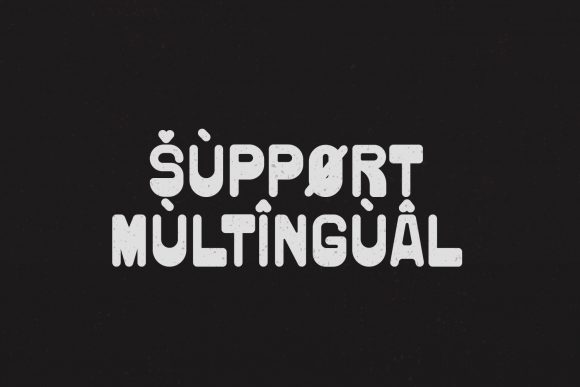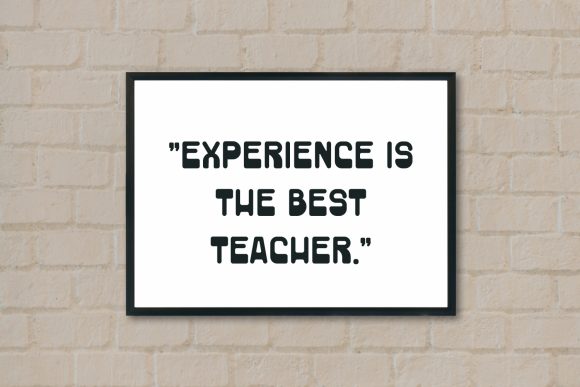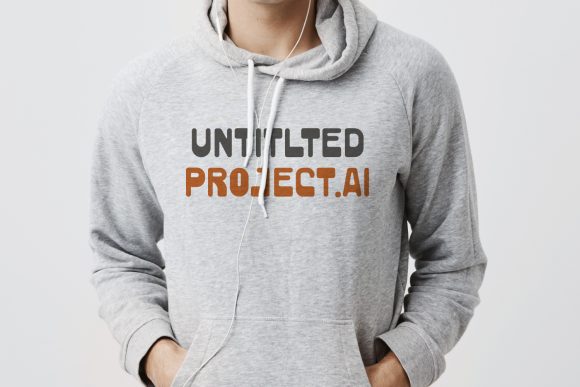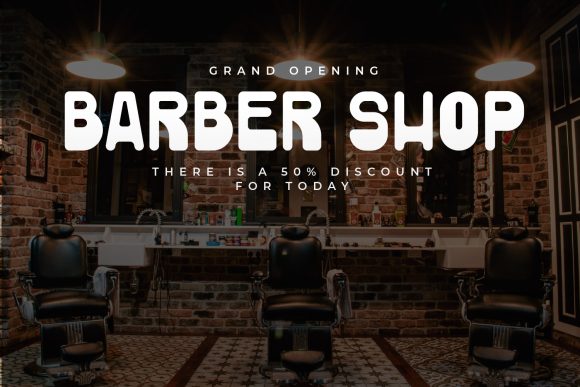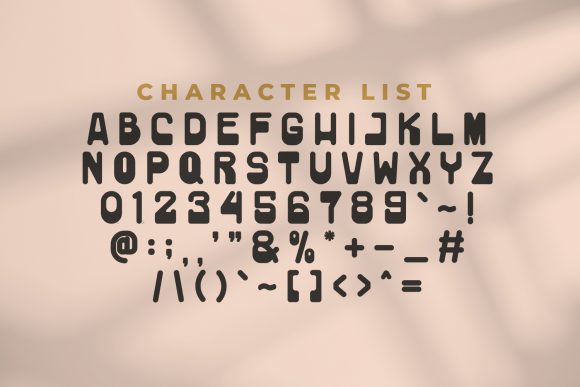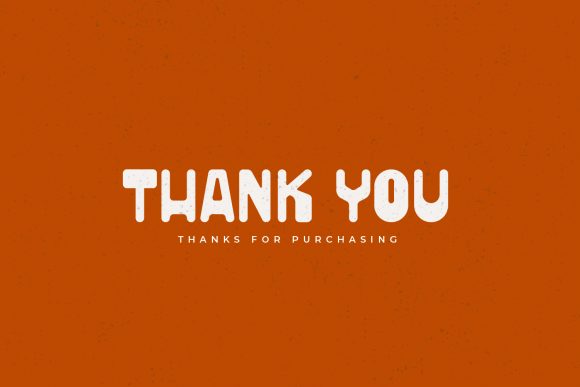
Introduction to Orange Goods Font
Have you ever stared at a blank page, desperately searching for the perfect font to bring your creative idea to life? That’s where the magic happens, and for many designers, it’s a moment of pure excitement. The right font can elevate your design from ordinary to extraordinary, making it stand out in a crowded market.
Enter the Orange Goods Font, a playful, cool, and modern display font that embodies the essence of fun, uniqueness, and authenticity. This dazzling display font is a game-changer for any creative project, offering a high-quality design resource that’s sure to turn heads. Whether you’re working on a free download or a paid project, Orange Goods Font is an excellent choice for designers seeking a reliable and versatile font.
With its transparent background and sleek design, Orange Goods Font is a valuable asset for any designer’s toolkit. It’s the perfect addition to your design arsenal, guaranteed to bring a touch of creativity and flair to your next project.
Key Features of Orange Goods Font
• High-quality design with a transparent background, perfect for creative projects that require a unique and eye-catching visual element.
• Includes a large character set, covering a wide range of languages and characters, making it suitable for global design projects.
• Features a bold and modern design, ideal for use in logos, branding, and other visual identity projects.
Honest Review: Orange Goods Font
• The Orange Goods Font is incredibly versatile, making it perfect for a wide range of creative projects.
• The font’s modern design is both sleek and sophisticated, adding a touch of elegance to any project.
• The transparent background option is a great feature, allowing for seamless integration with other design elements.
• The font’s character set is a bit limited, making it less suitable for projects that require a wide range of special characters.
Tips for Getting the Most Out of Orange Goods Font
For optimal results, use the Orange Goods Font in conjunction with other high-quality design elements, such as images and graphics. Experiment with different font sizes, colors, and combinations to achieve the desired look and feel for your project.
Common Use Cases for Orange Goods Font
The Orange Goods Font is suitable for a variety of creative projects, including graphic design, branding, and marketing materials. It’s particularly useful for creating eye-catching headings, titles, and other text elements that require a unique and stylish look.